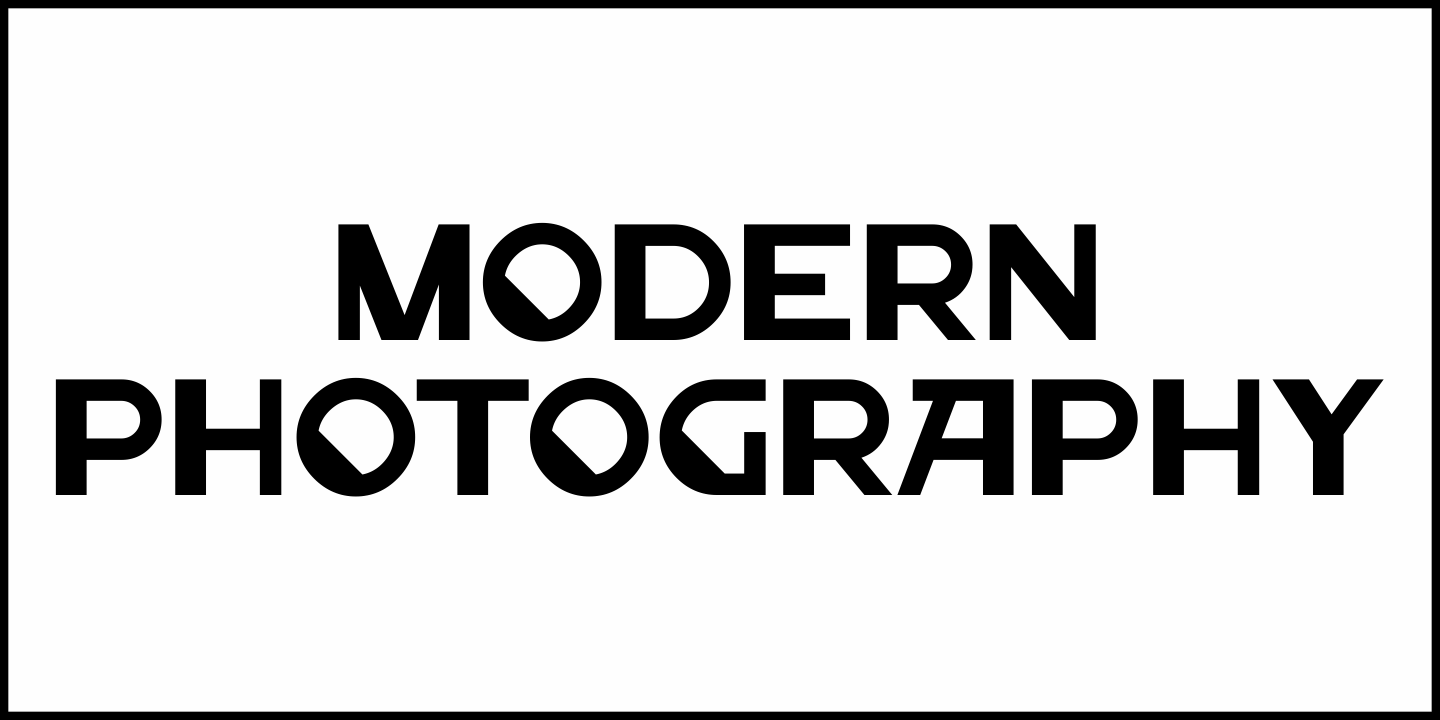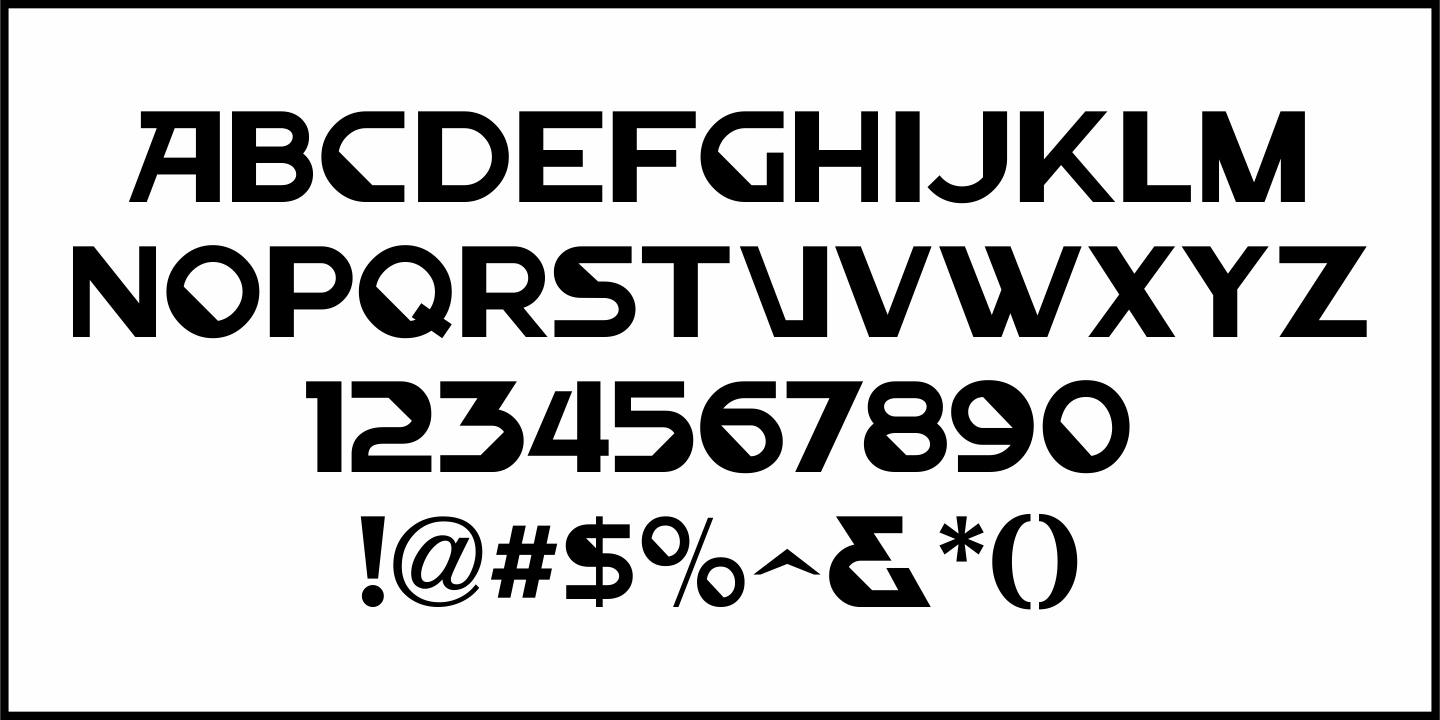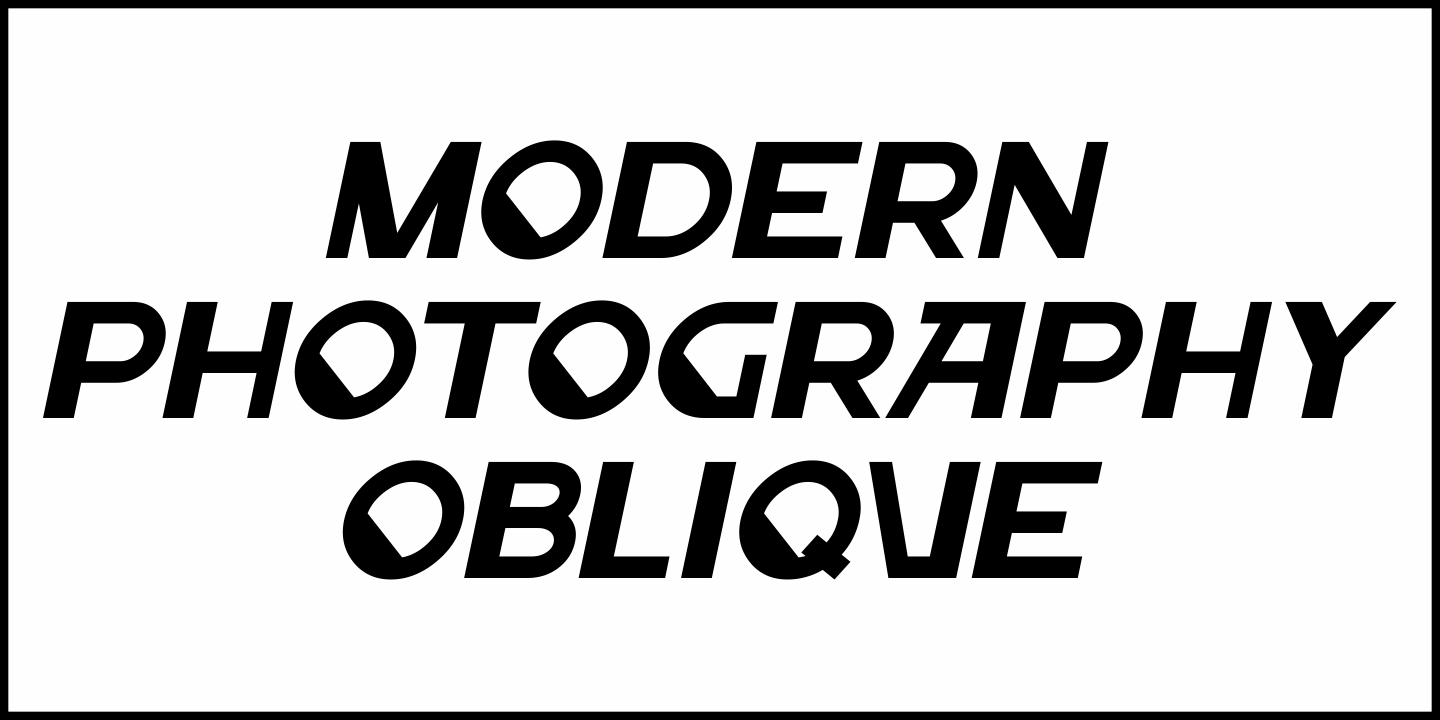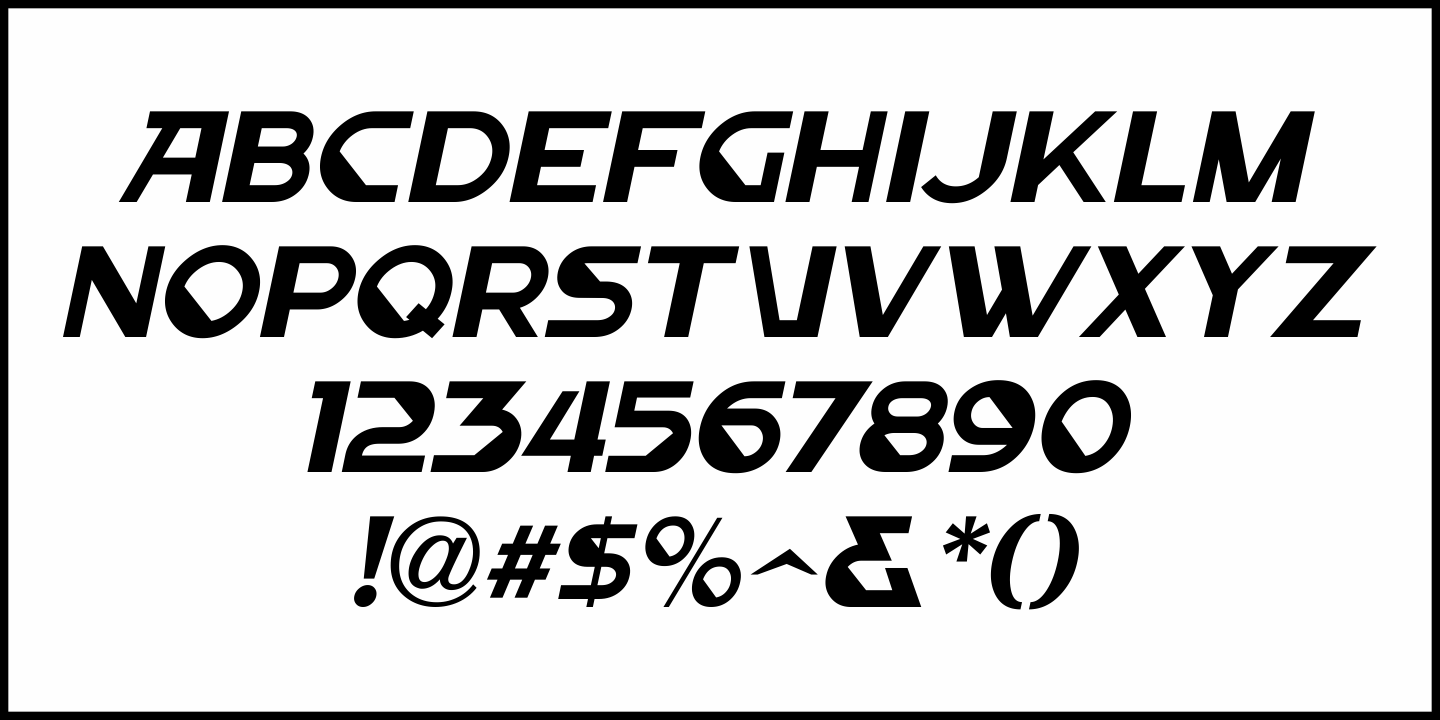
Modern Photography
When two different people suggest a font idea, it's best that it gets some attention.
Both individuals forwarded an image of a photograph taken by Alfredo Camisa in 1958 entitled "Fotografia Moderna" (named after the subject of the photo). It was of a worn old building in Italy with crude hand lettering for its signage stating "Fotografia Moderna" ["Modern Photography].
The type styles were a mix of Art Nouveau and Art Deco, and at first it didn't look like anything could be made of it... but after further study, the idea arose to blend the best of both lettering styles and come up with Modern Photography JNL, which is available in both regular and oblique versions.